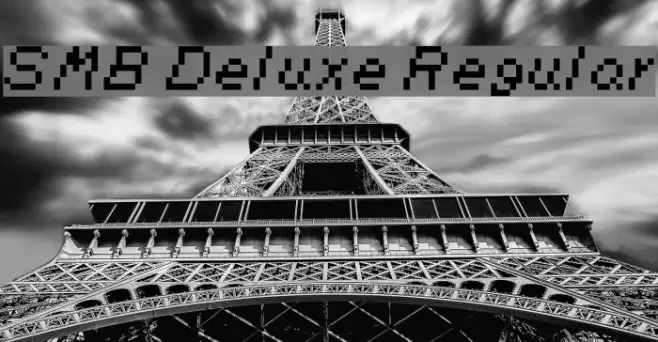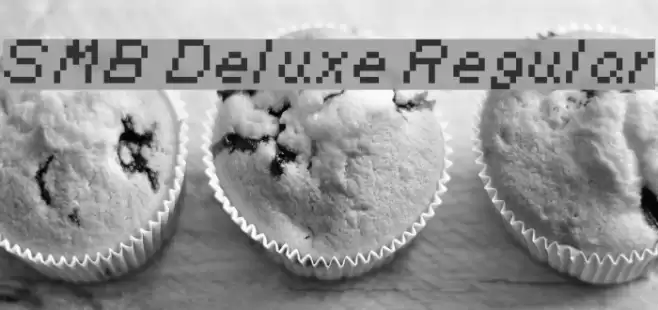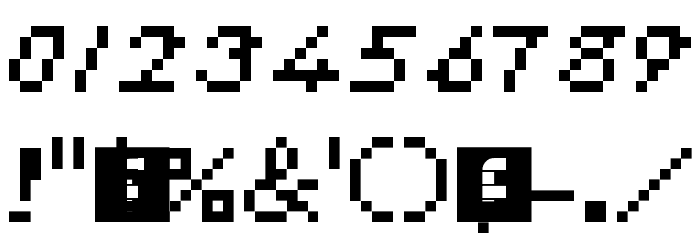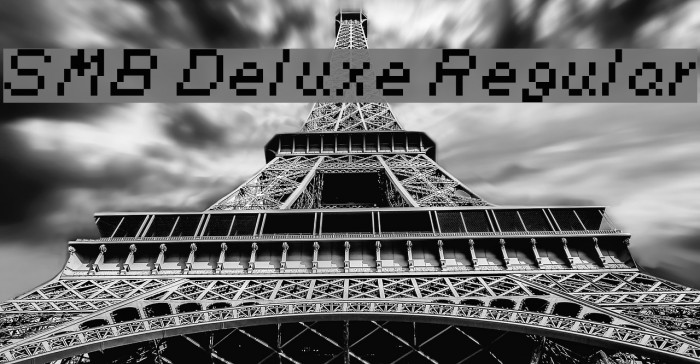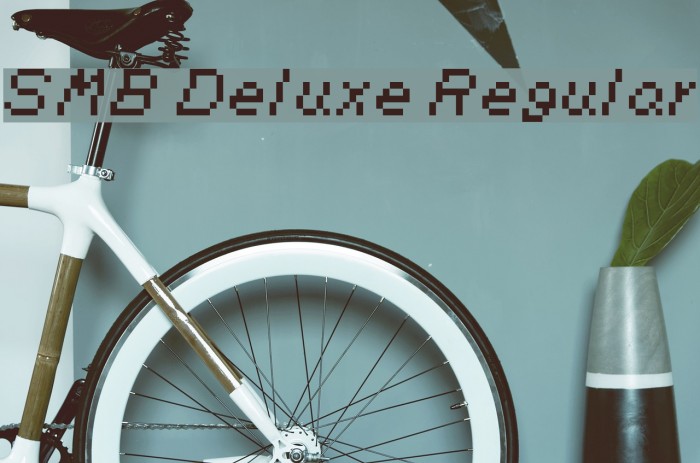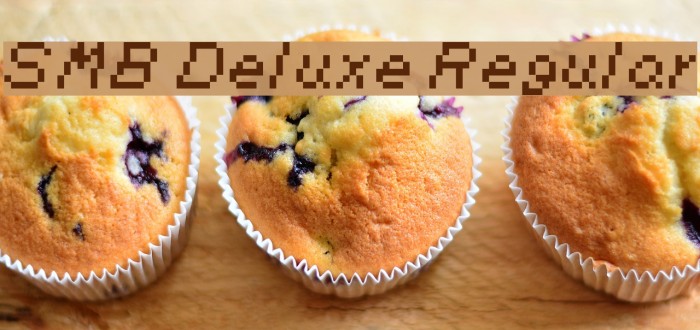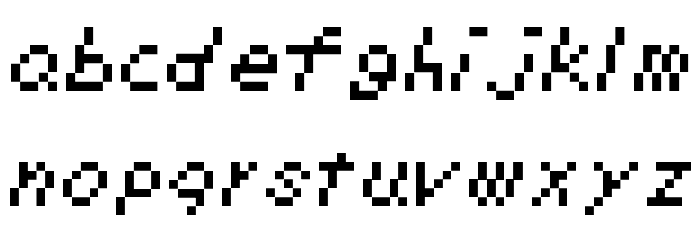
SMB Deluxe Regular Font
SMB Deluxe Regular Description
This font features a pixelated, retro style reminiscent of early digital displays and video games. The characters are constructed from small, square blocks, giving them a distinct, grid-like appearance. Uppercase and lowercase letters maintain a consistent height and width, creating a uniform look. The numerals and special characters follow the same pixelated style, ensuring cohesion across all glyphs. This font's nostalgic aesthetic is perfect for projects that aim to evoke a sense of classic gaming or digital nostalgia.
A pixelated, retro font inspired by early digital displays from Uncategorized fonts.
- Proposed Projects: Ideal for retro video game designs, digital art projects, or any creative work that seeks to capture a vintage digital aesthetic.
- Overall Style: Vintage
- Use Case: Logos, Headlines, Digital Art